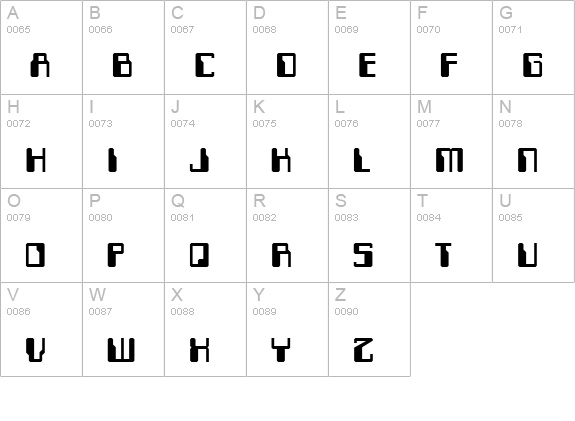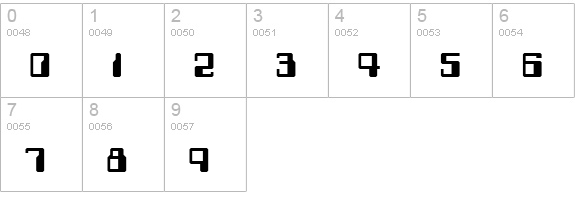
Computerfont Font Details
Computerfont is a versatile and modern typeface that embodies the essence of digital innovation and technological advancement. With its sleek lines and crisp edges, this font is perfect for conveying a sense of professionalism and cutting-edge design in any project. Whether you're working on a website, presentation, or branding materials, Computerfont will elevate your content with its contemporary aesthetic. What's even better is that Computerfont is available for free download at FontsMarket.com. This means you can access this high-quality font without any cost, making it an ideal choice for designers, developers, and creatives looking to enhance their work without breaking the bank. Don't miss out on the opportunity to add Computerfont to your font collection and take your projects to the next level.